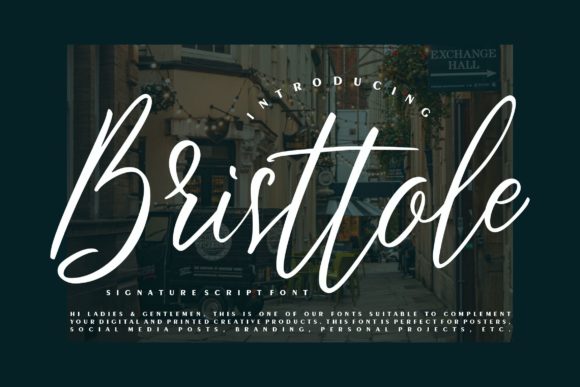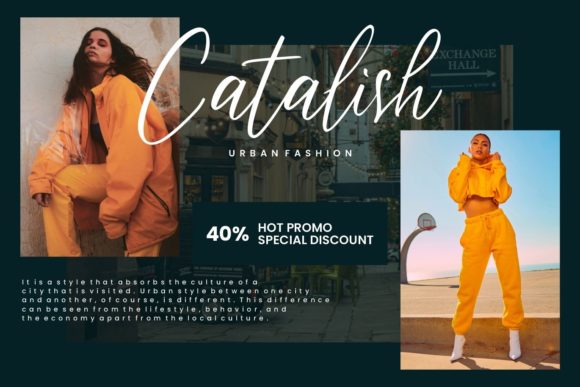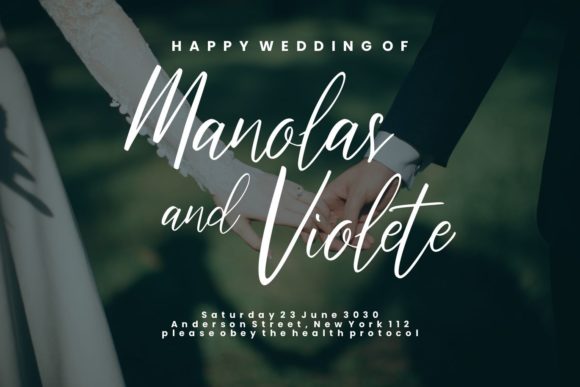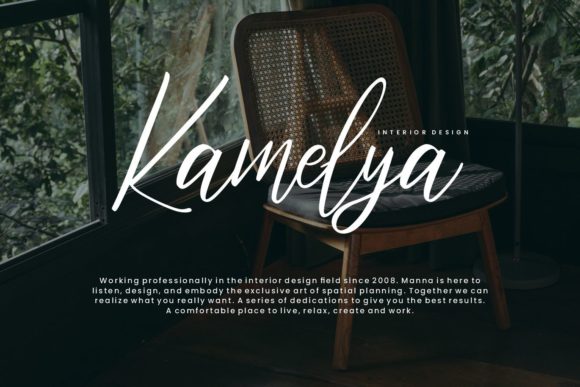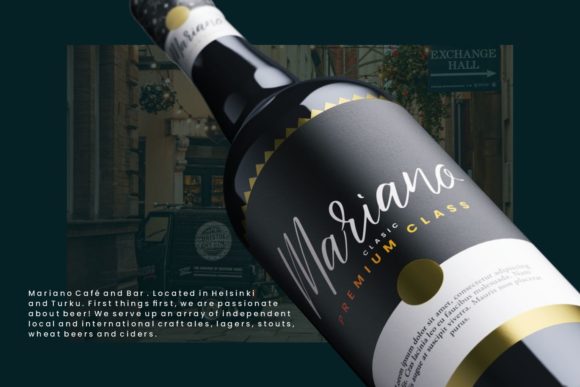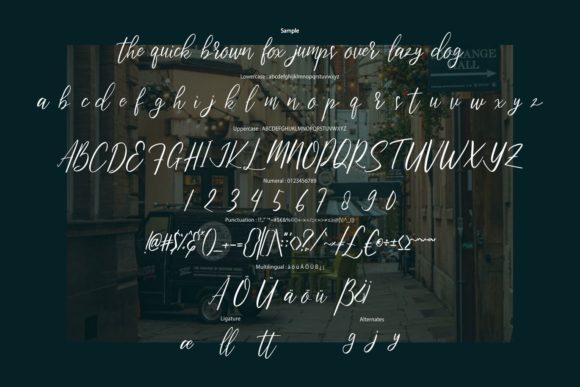
Bristtole Script Font
About Bristtole Script Font
Bristtole Script is a lovely and delicate script font that exudes elegance and class. This font was particularly crafted for those who need a beautiful and refreshing look to their designs.